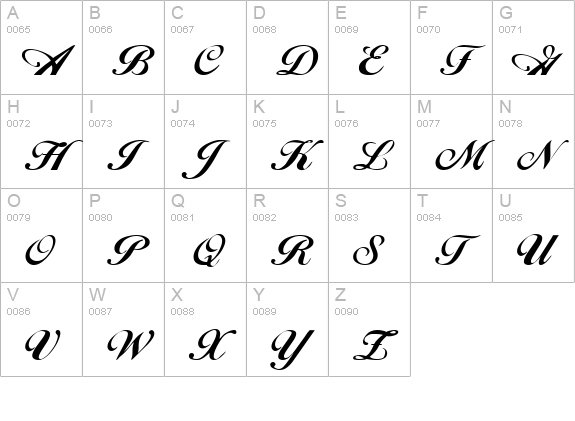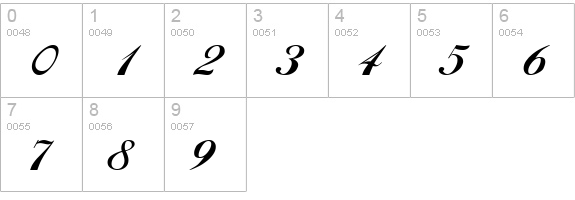
Andrea Font Details
Andrea font is a modern and stylish typeface that exudes elegance and sophistication. Its sleek lines and unique curves make it a versatile choice for a wide range of design projects, from branding to editorial design. With a perfect balance of classic and contemporary elements, Andrea font adds a touch of sophistication to any design. The best part? Andrea font is completely free to download at FontsMarket.com. Whether you're a designer looking to add a new font to your collection or a business owner seeking a fresh look for your branding, Andrea font is the perfect choice. Download it today and elevate your designs with this stunning and timeless typeface.